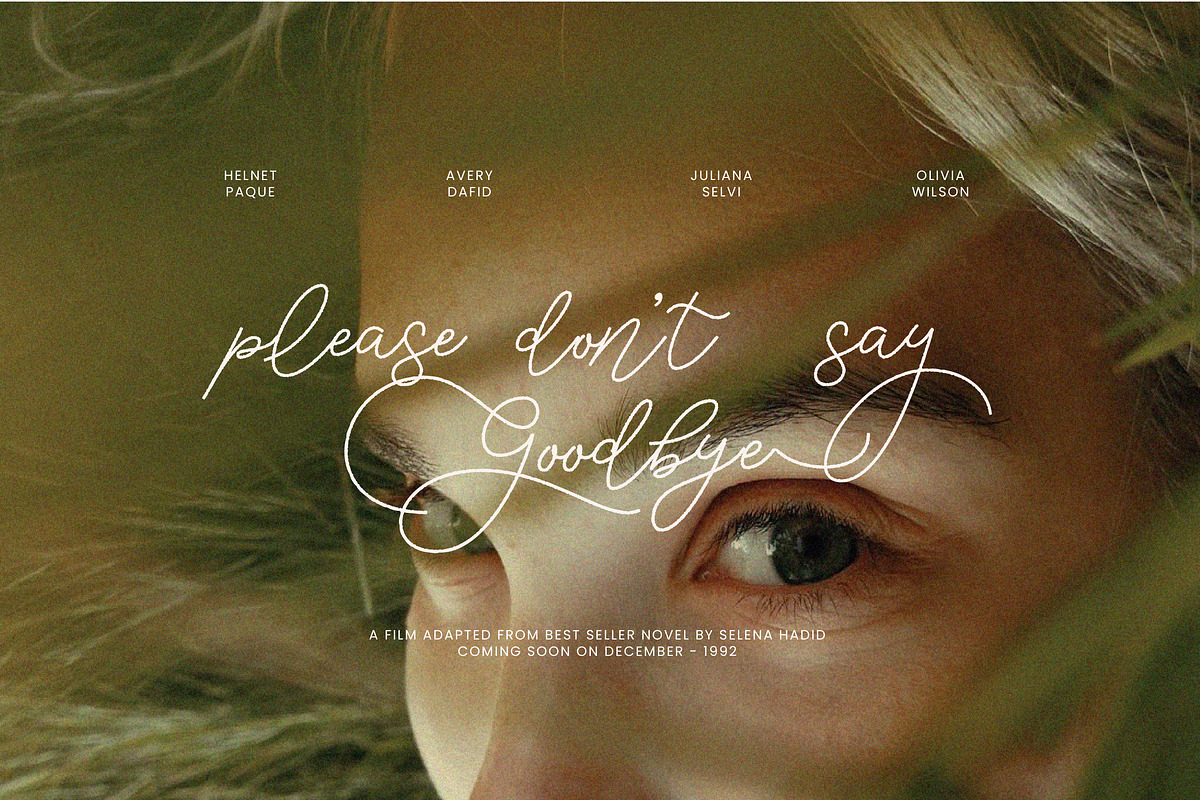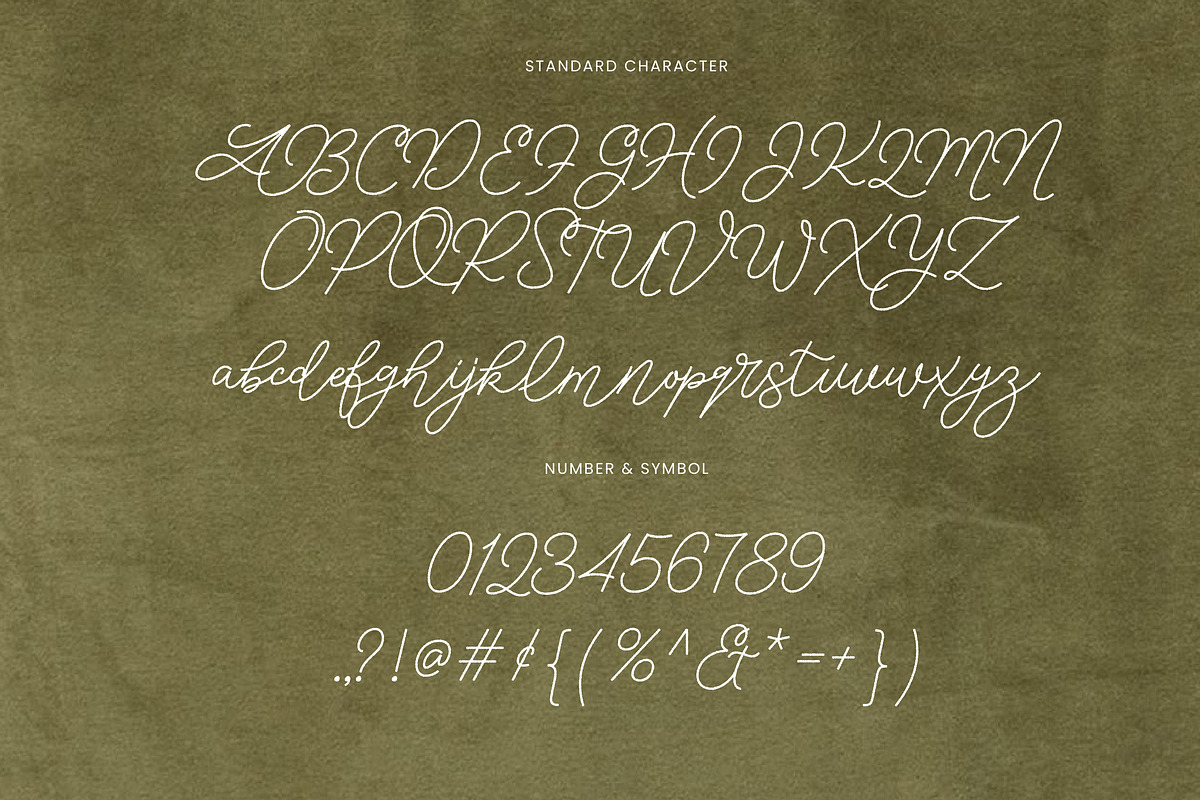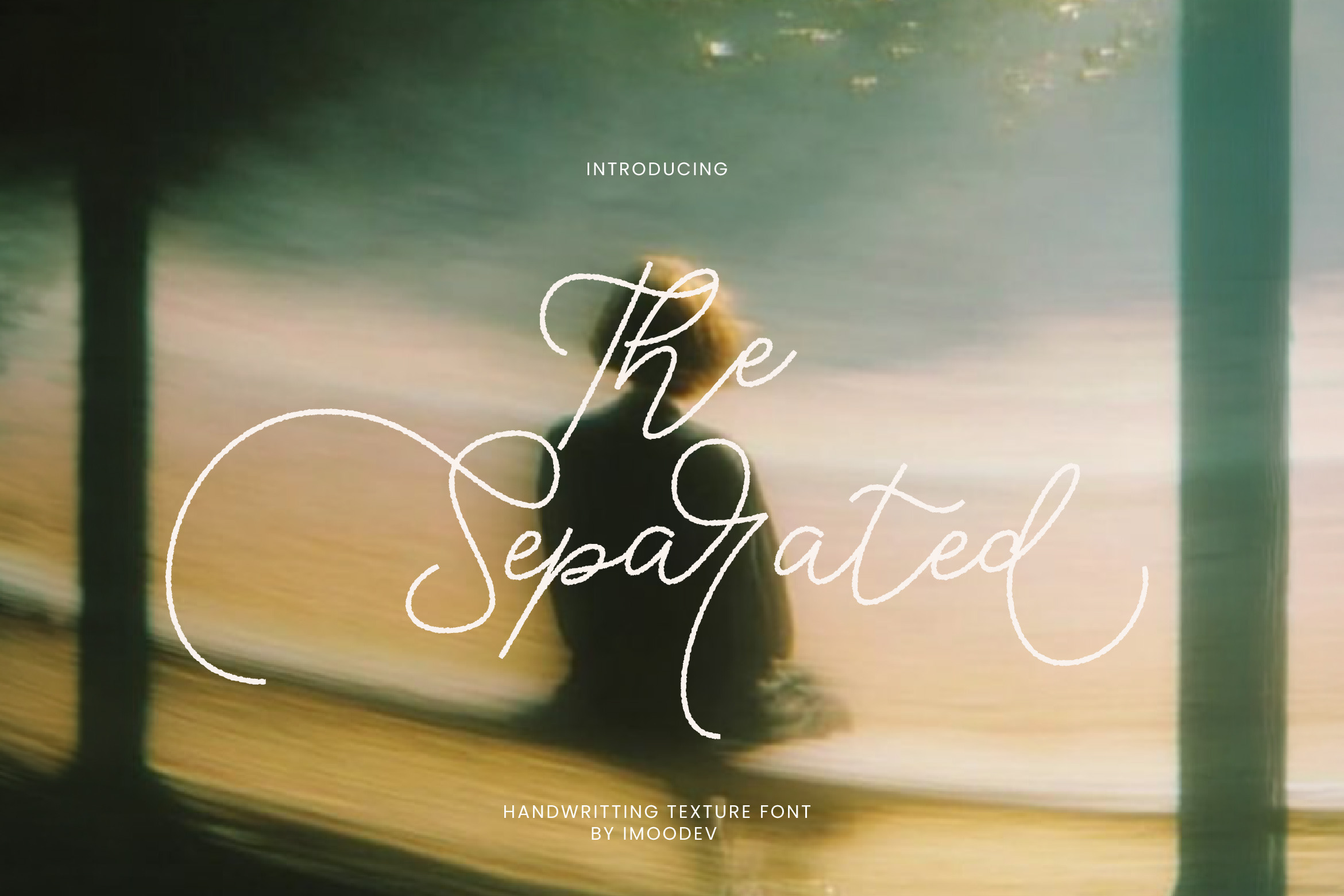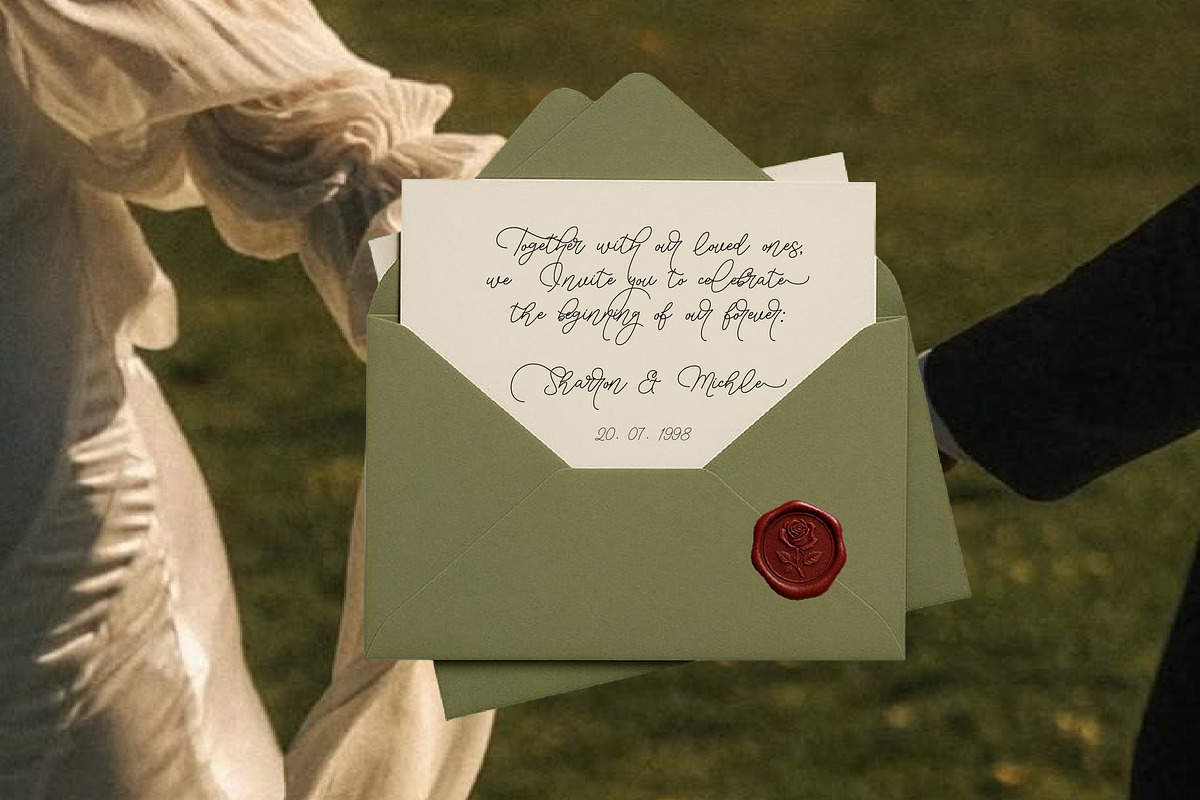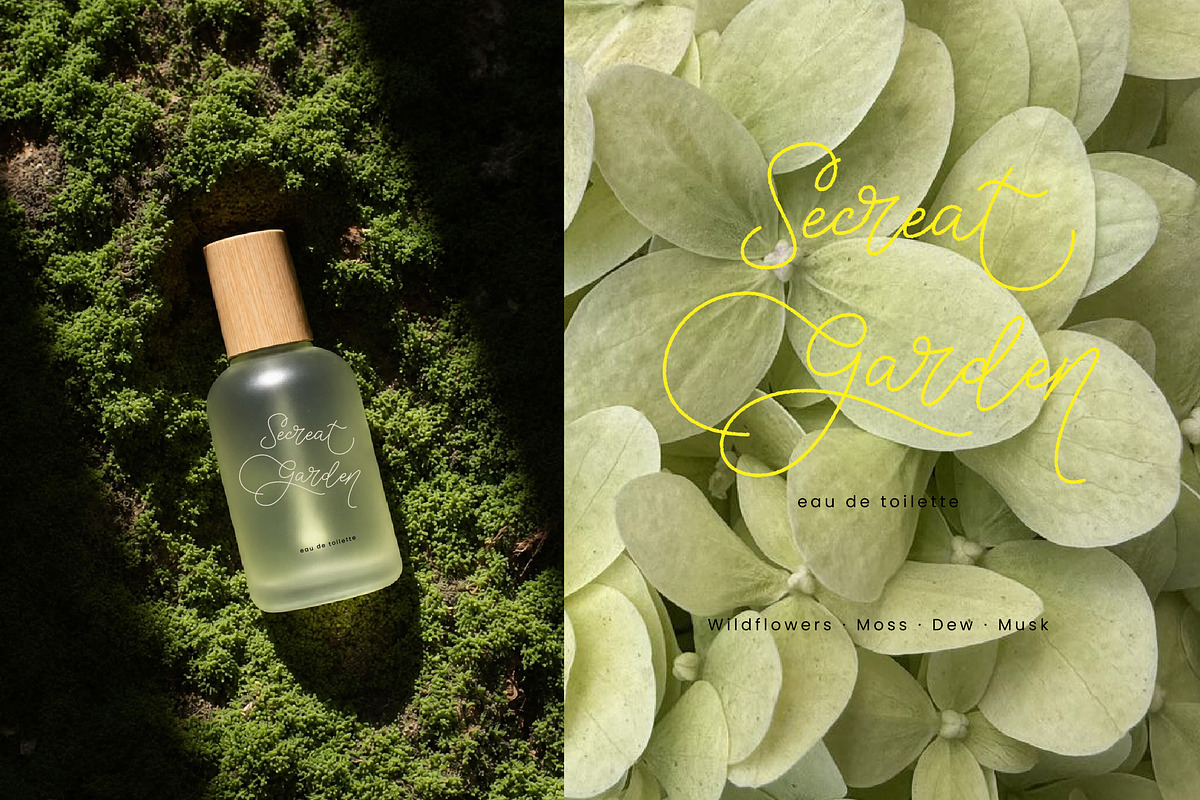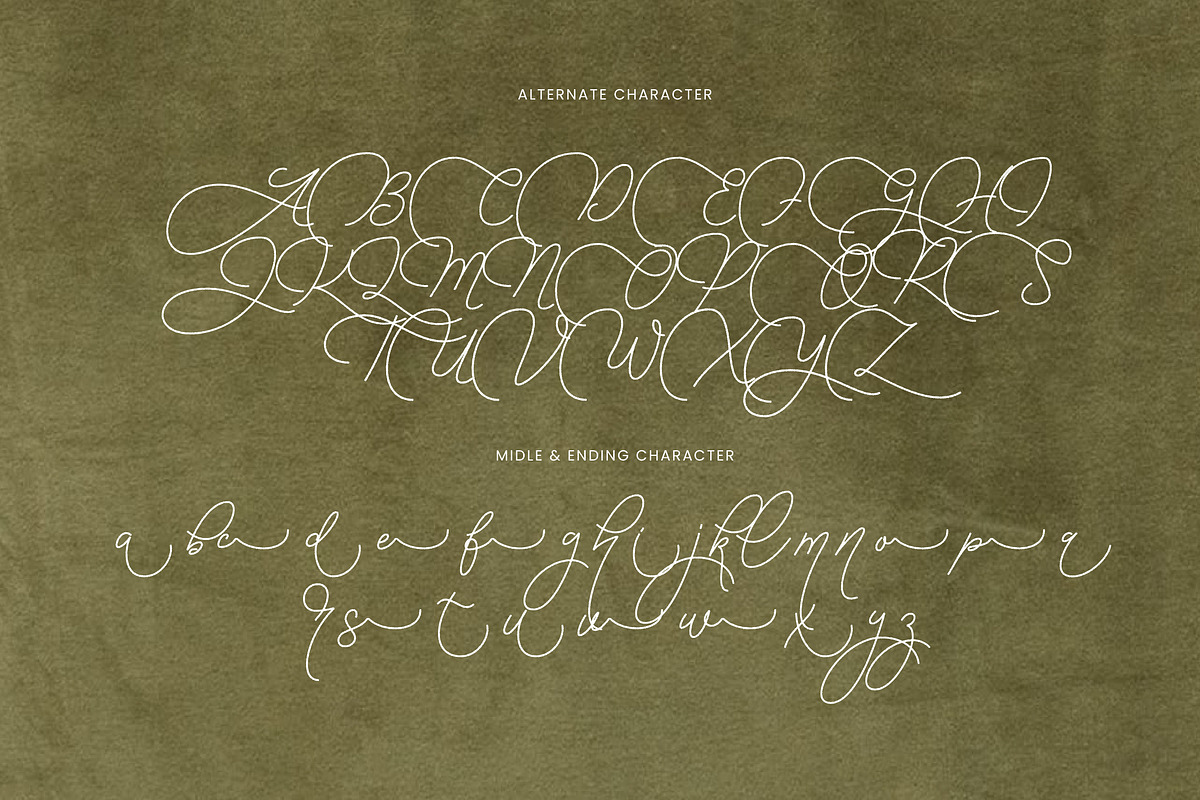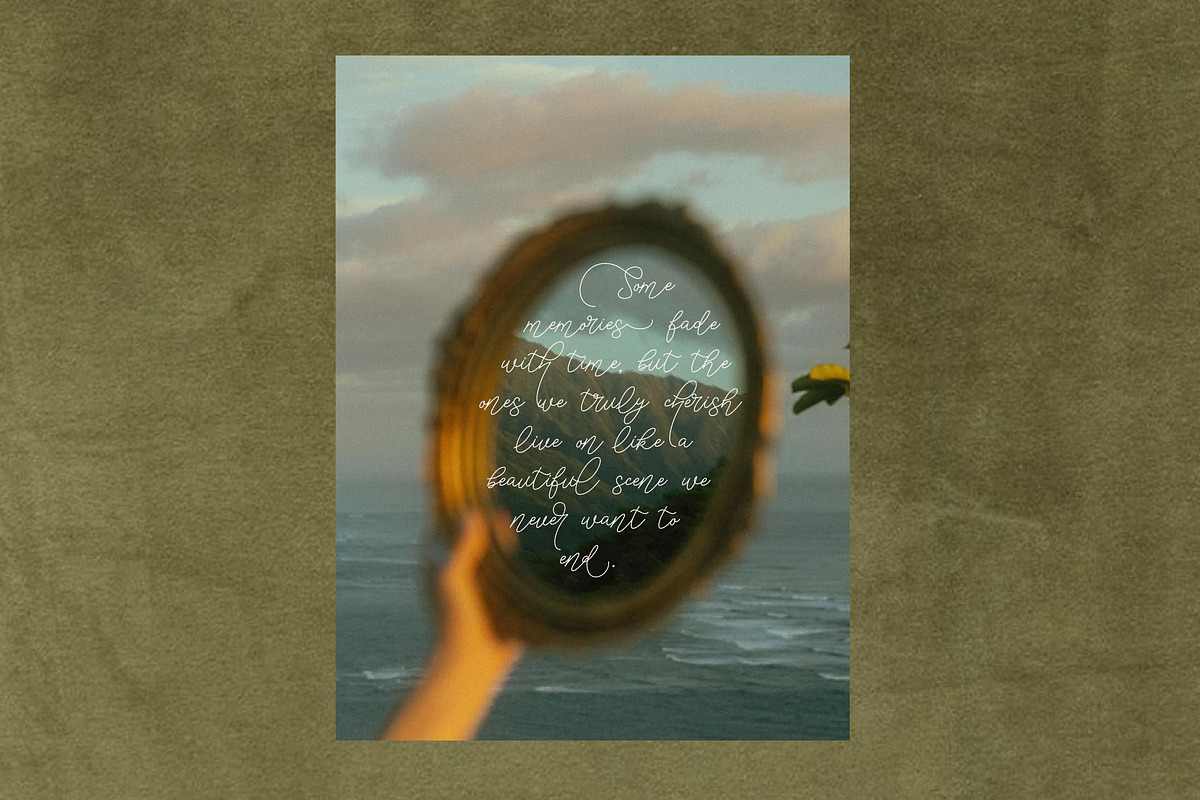
The Separated | Romantic Script Font
The Separated is a rough romantic handwritten signature script font with a delicate, thread like monoline stroke. The letters feel airy and loose, full of long entry and exit strokes, exaggerated loops, and sweeping tails that connect naturally into the next letter.
This font is tall, elegant, and heavily flourished, with oversized looping bowls. The caps carry long underswoops and overhead loops, giving headlines a dramatic, editorial feel, perfect for moody, cinematic branding.
The font also includes a full alternate character set: wilder, more calligraphic versions of the uppercase letters with extra large swashes and tangled loops.
Overall, this font is dreamy, nostalgic, and editorial, well suited for wedding invitations, perfume or product branding, film titles, and emotional quote graphics, movie poster, perfume label, mirror quote graphic.
Uppercase and Lowecase Characters.
Numerals and Punctuations.
Alternates and Ligatures.
Multilingual Support.